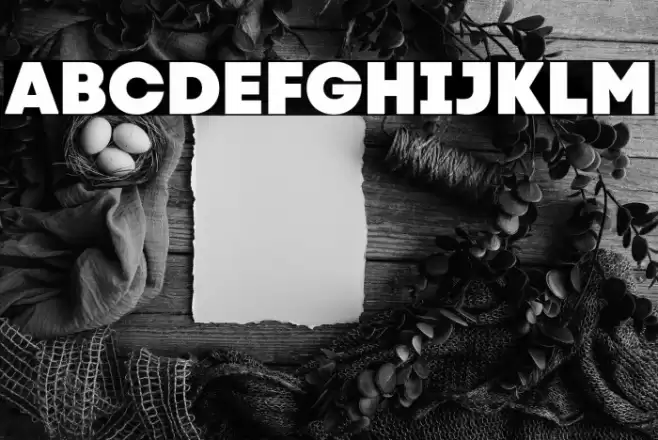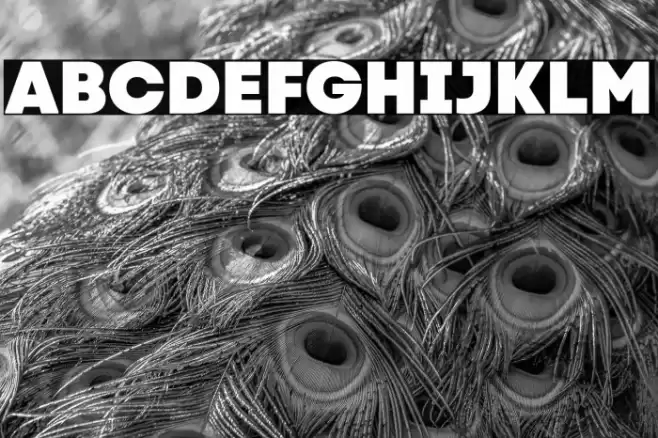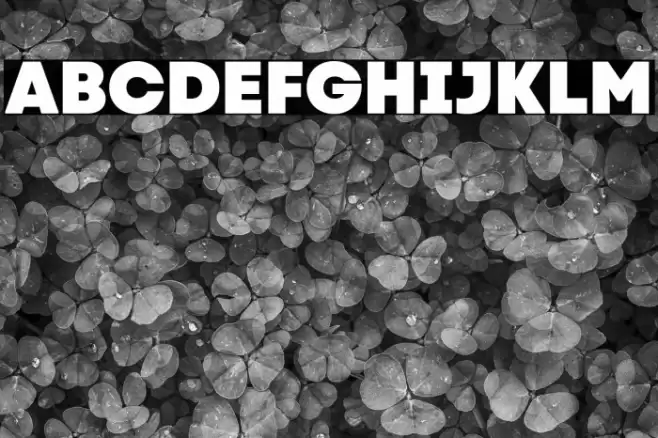
Code Next-Trial Heavy Font
Code Next-Trial Heavy Description
This font features bold, thick strokes with a strong presence, making it ideal for attention-grabbing headlines and impactful designs. The characters are uniformly wide, with a consistent weight that emphasizes their boldness. The uppercase and lowercase letters maintain a uniform height, contributing to a cohesive and balanced appearance. The numerals are equally bold, ensuring they stand out in any context. Special characters are designed with the same boldness, ensuring consistency across all elements. The overall style is modern and assertive, suitable for projects that require a strong visual impact.
A bold, modern font with thick strokes and a strong presence from Uncategorized fonts.
- Proposed Projects: Ideal for headlines, posters, branding, and any design requiring a bold statement.